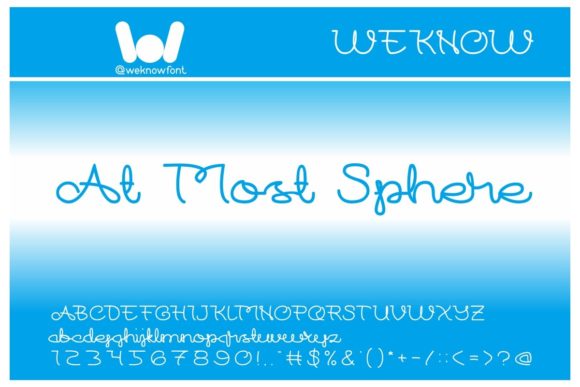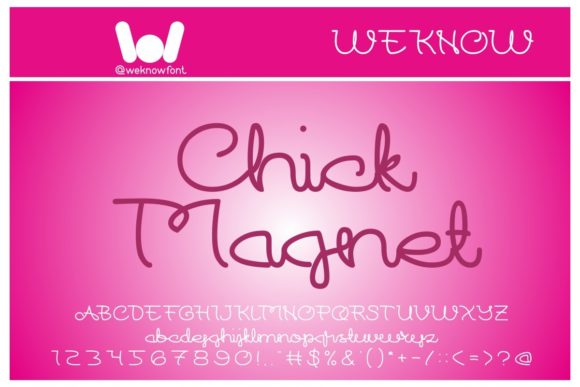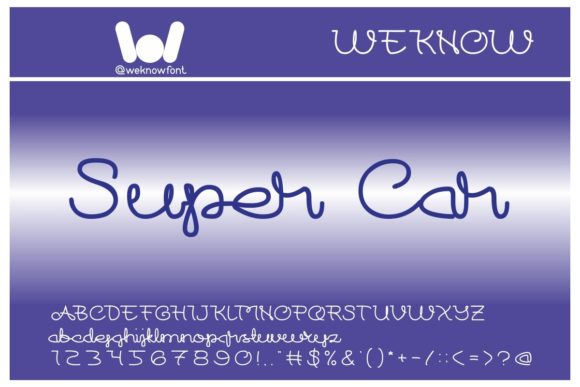
Introduction to Macau Font
As a designer, have you ever stared at a blank canvas, eager to bring your creative vision to life, but struggling to find the perfect font to match your idea? That’s where Macau Font comes in – a charming, high-quality display font that’s sure to elevate your design project to new heights.
With its whimsical and unique design, Macau Font is perfect for adding a touch of personality to your creative project. Whether you’re working on a free download design or a commercial project, this font is sure to make your design stand out. And the best part? You can use it with a transparent background, giving you complete flexibility to customize your design to your heart’s content.
Key Features of Macau Font
- Features a unique, elegant design with a transparent background for flexible use
- Designed in a modern style, perfect for adding a touch of sophistication to any project
- Includes a comprehensive character set, covering a wide range of languages and characters
Honest Review: Macau Font
As a designer, I’m always on the lookout for high-quality design resources that can elevate my creative projects. Recently, I stumbled upon the Macau Font, and I’m excited to share my honest review with you.
What works well: ✨ The Macau Font has a sleek and modern aesthetic that’s perfect for a variety of design applications. It’s free to download, which is a huge bonus for designers on a budget. The font is also available in a range of weights and styles, making it easy to customize to suit your needs.
What doesn’t work well: ⚠️ One of the limitations of the Macau Font is that it’s not suitable for use in all languages. Additionally, the transparent background option can sometimes be a bit finicky to work with.
Overall, I’m really impressed with the Macau Font. It’s a great design resource for anyone looking to add a touch of sophistication to their creative projects. Just be aware of the limitations mentioned above, and you’ll be good to go!
Tips for Getting the Most Out of Macau Font
For the best results when using the Macau Font, be sure to adjust the font size and style to suit your design project. You can also use the font in combination with other design elements to create a unique and eye-catching look.
The Macau Font is a versatile design resource that can be used in a variety of creative projects, including logo design, branding, and marketing materials. Its transparent background and high-quality design make it a great choice for any project that requires a unique and eye-catching font.